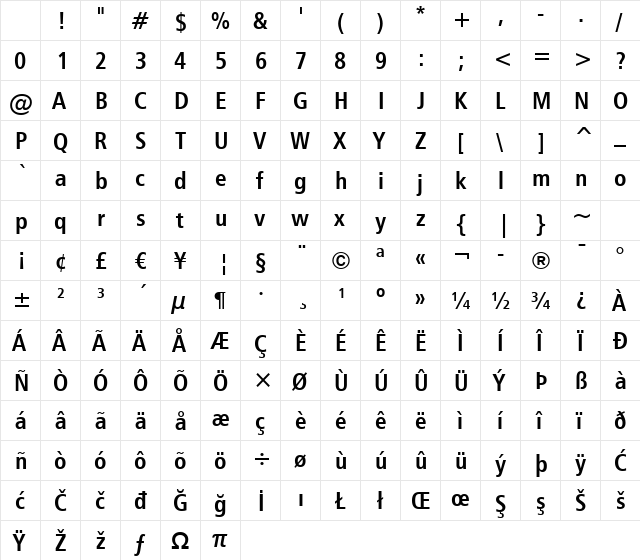
Complete Clouts! Regular glyph index. Displaying only characters natively supported by Clouts! Regular font.
Clouts! is a composed and adaptable typeface that performs quietly and consistently across a wide range of design contexts.